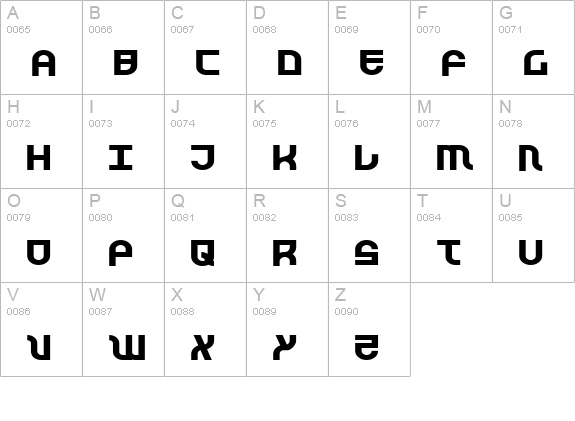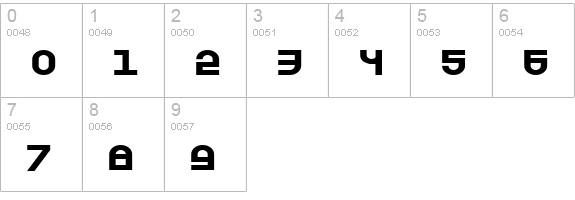
Trek Trooper Expanded Font Details
Trek Trooper Expanded is a distinctive, extended-width variant in the Trek typeface family \xE2\x80\x94 well suited to design and typography projects.
Trek Trooper Expanded font is a bold and futuristic typeface designed to make a bold statement in your designs. With its sleek lines and sharp edges, this font exudes a sense of adventure and exploration. Whether you're working on a sci-fi project or looking to add a modern touch to your designs, Trek Trooper Expanded is the perfect choice. The best part? This dynamic font is available for free download at FontsMarket.com. You can easily access and use this font to elevate your designs without breaking the bank. Don't miss out on the opportunity to incorporate Trek Trooper Expanded into your creative projects today!